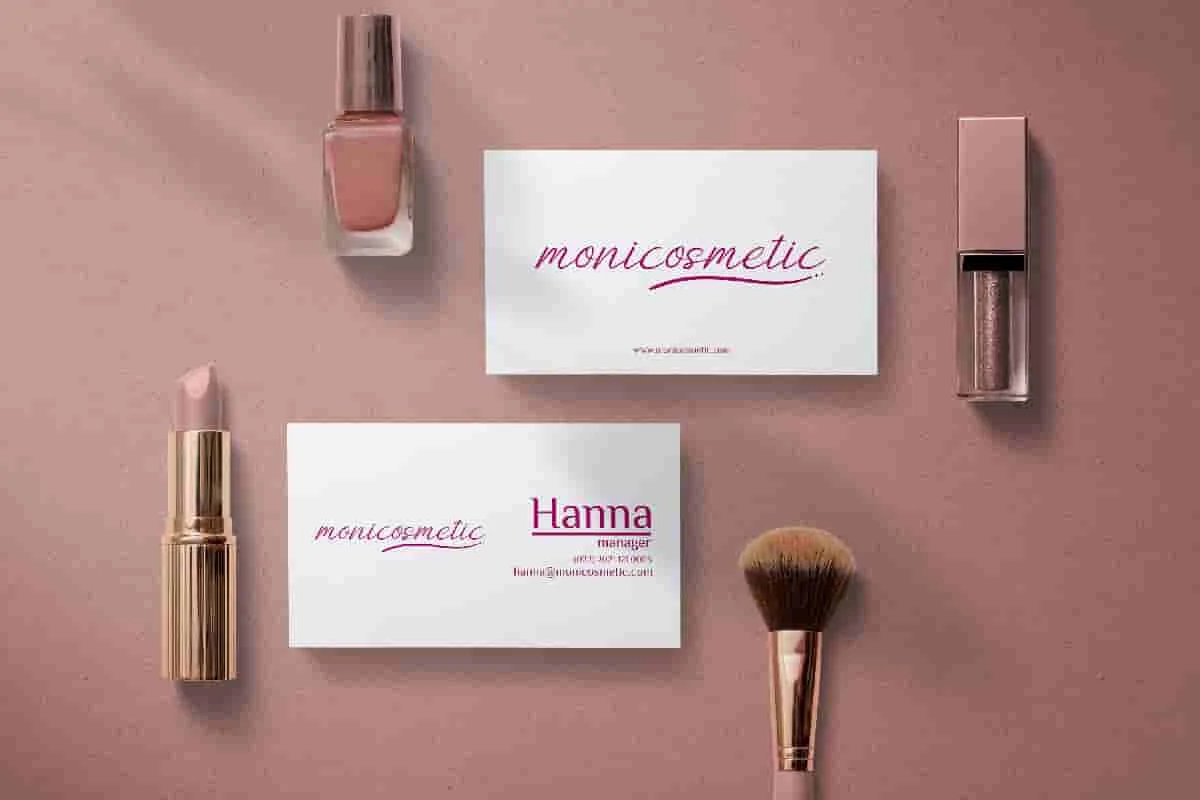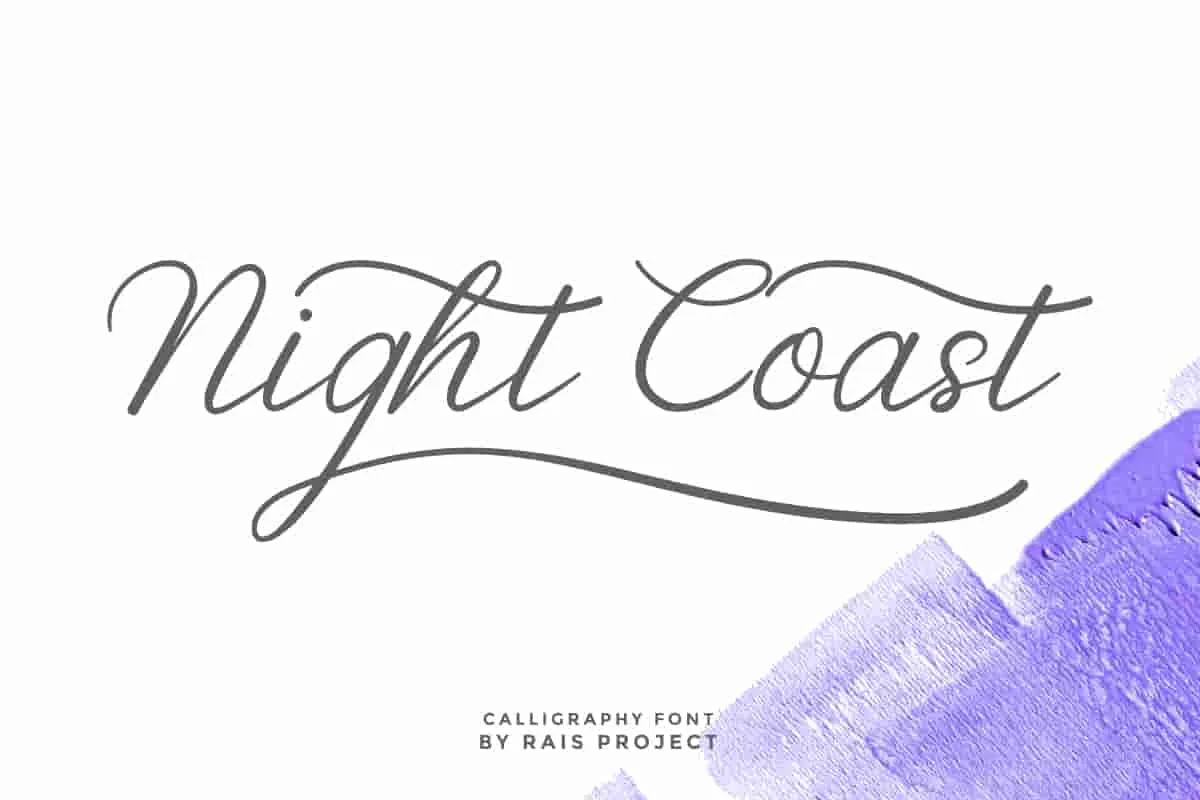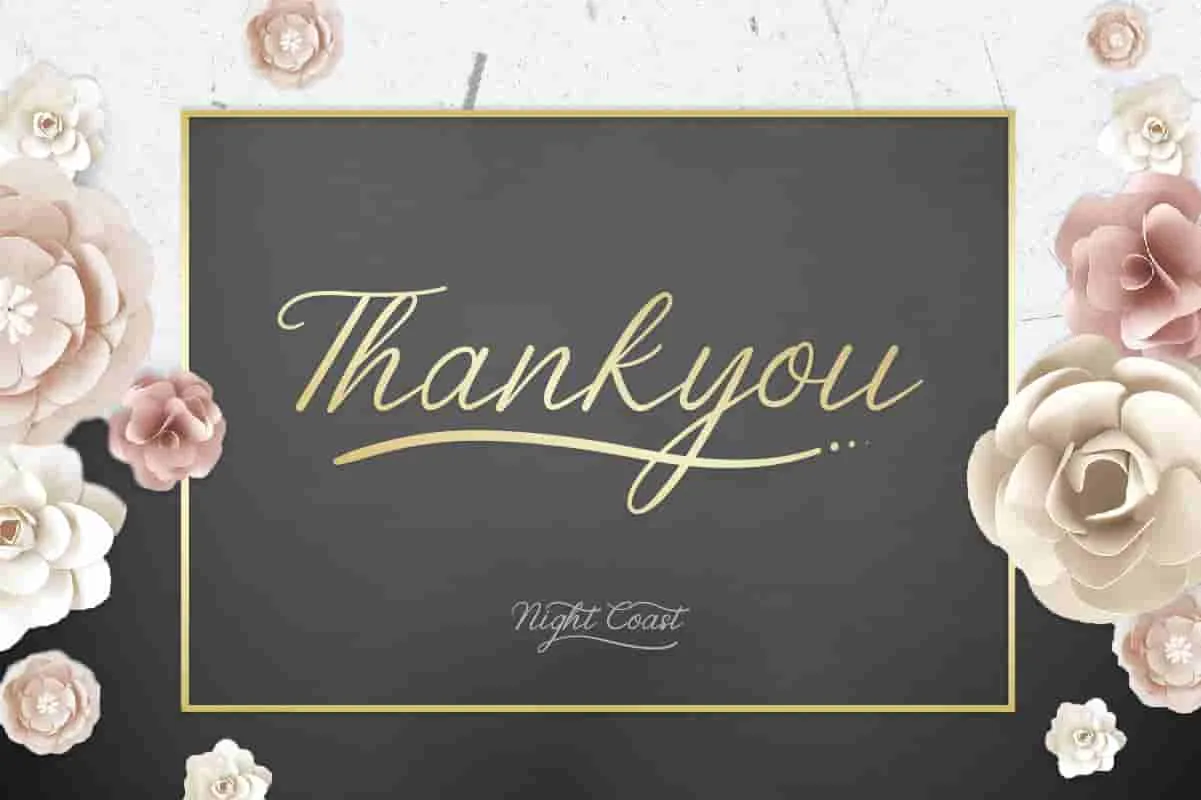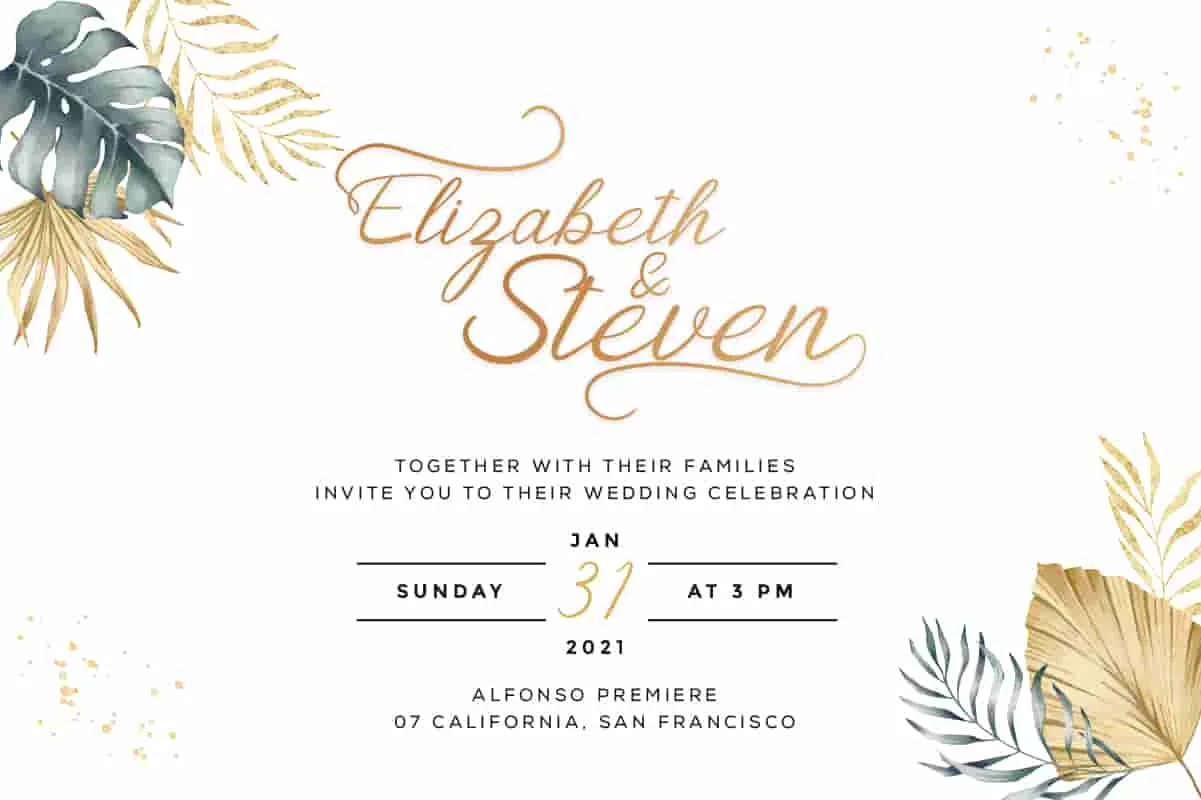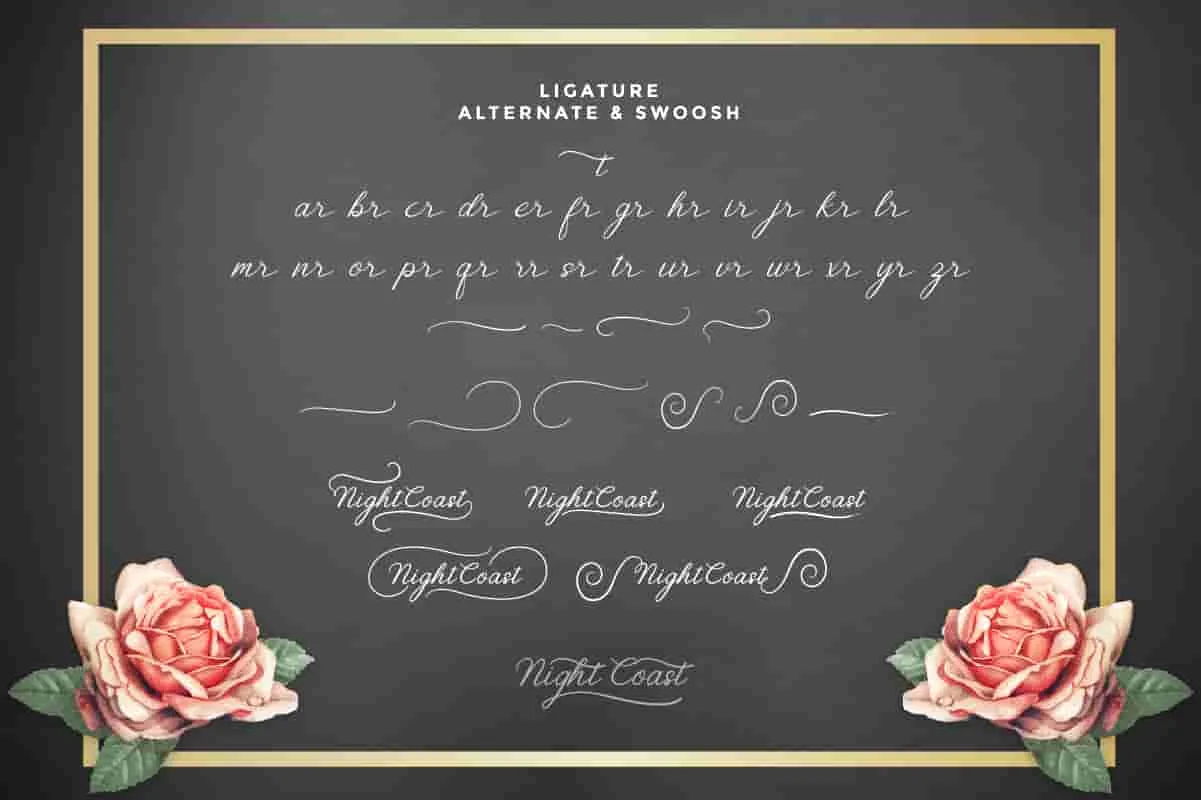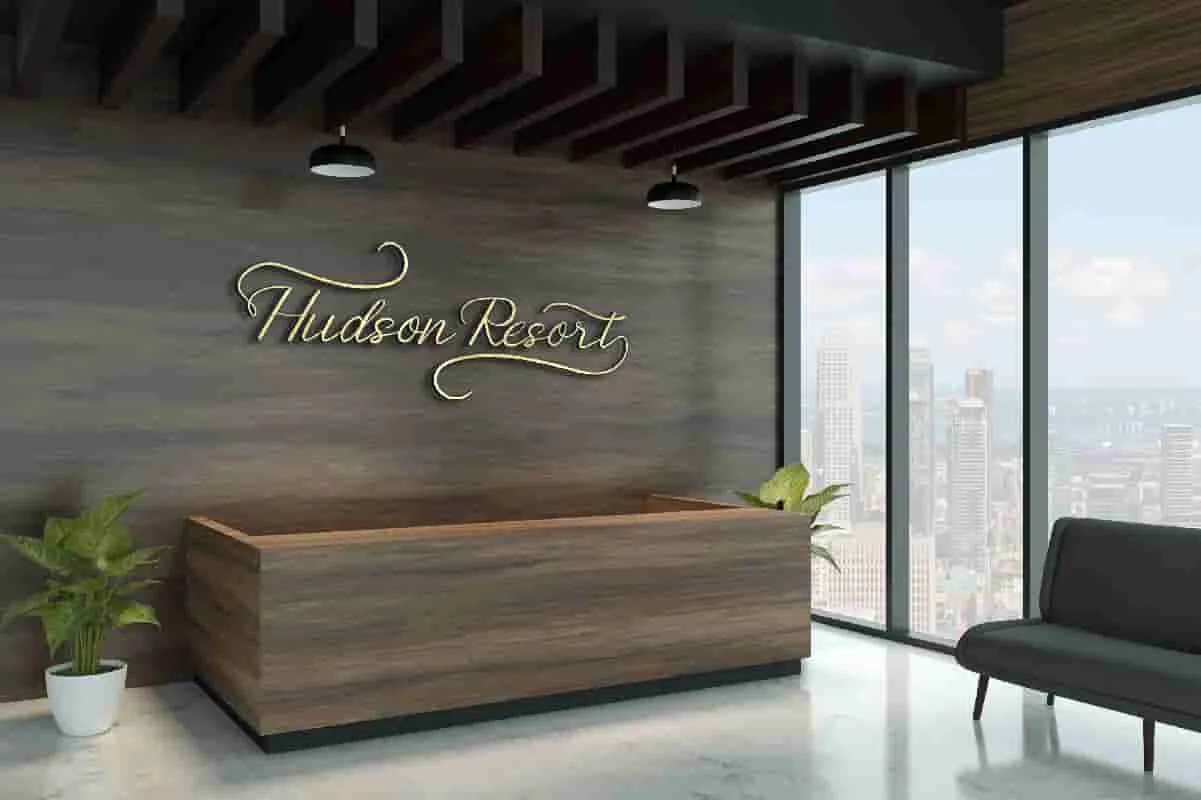
Nightcoast calligraphy Font
Nightcoast Font is a beautiful calligraphy Script Font by RaisProject. Nightcoast will be stunning for any your special projects including :product, events, weddings, promotion, branding, advertising etc
Nightcoast Font  is a beautiful script font with calligraphic handwriting style. You can see the demo font below. You can also input any word you want so you can see what it will look like :
Nightcoast Font made in Indonesia by Shalsa and Suci for RaisProject. The font handcrafted With beautiful characters, it will be stunning for any your special projects including : weddings, promotion, events, branding, advertising, magazine, shopping, signage, invitation, stationery, social media posts, product packaging, product designs, label, photography, watermark or and any projects that need calligraphy handwriting style. Nightcoast Font includes full set of gorgeous uppercase and lowercase letters, numerals, a large range of punctuation and ligatures. All letters has realistic hand-lettered style to make it unique yet stunning design. You will get: